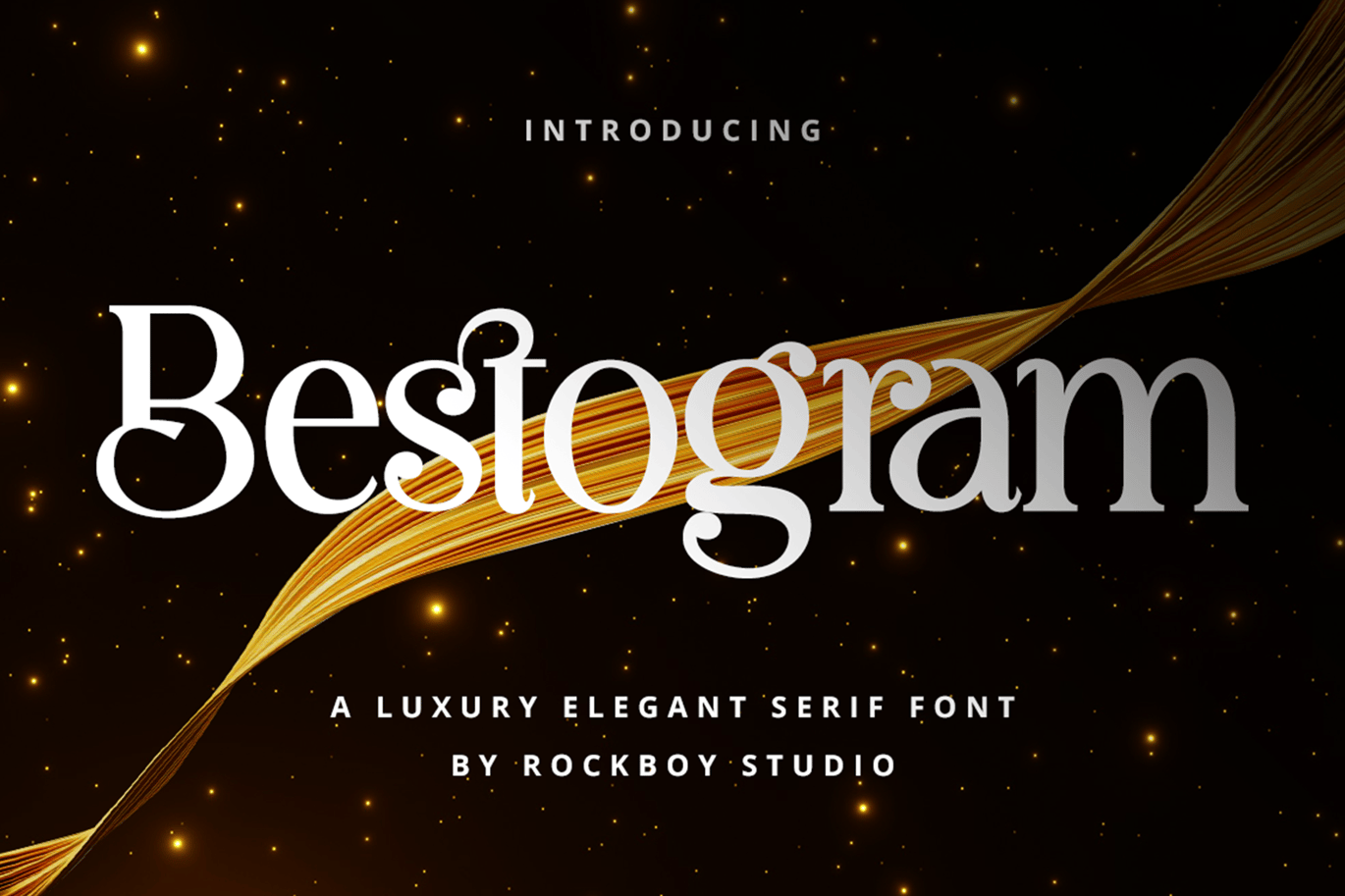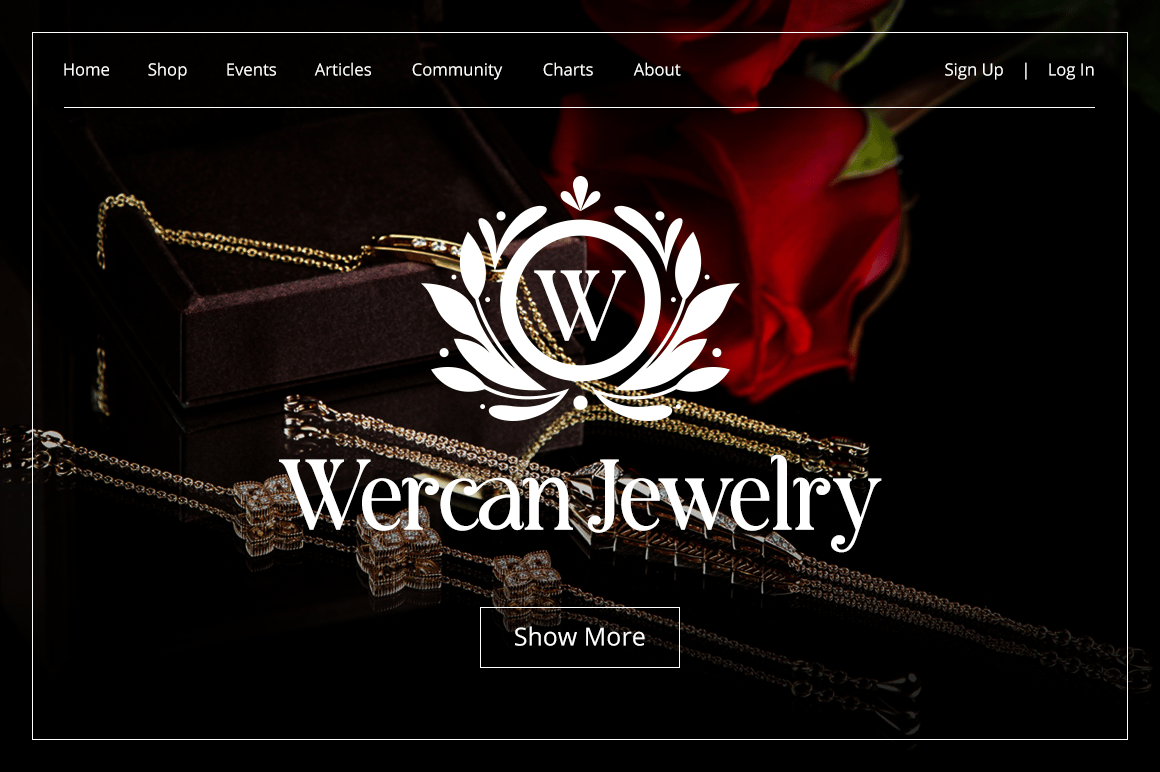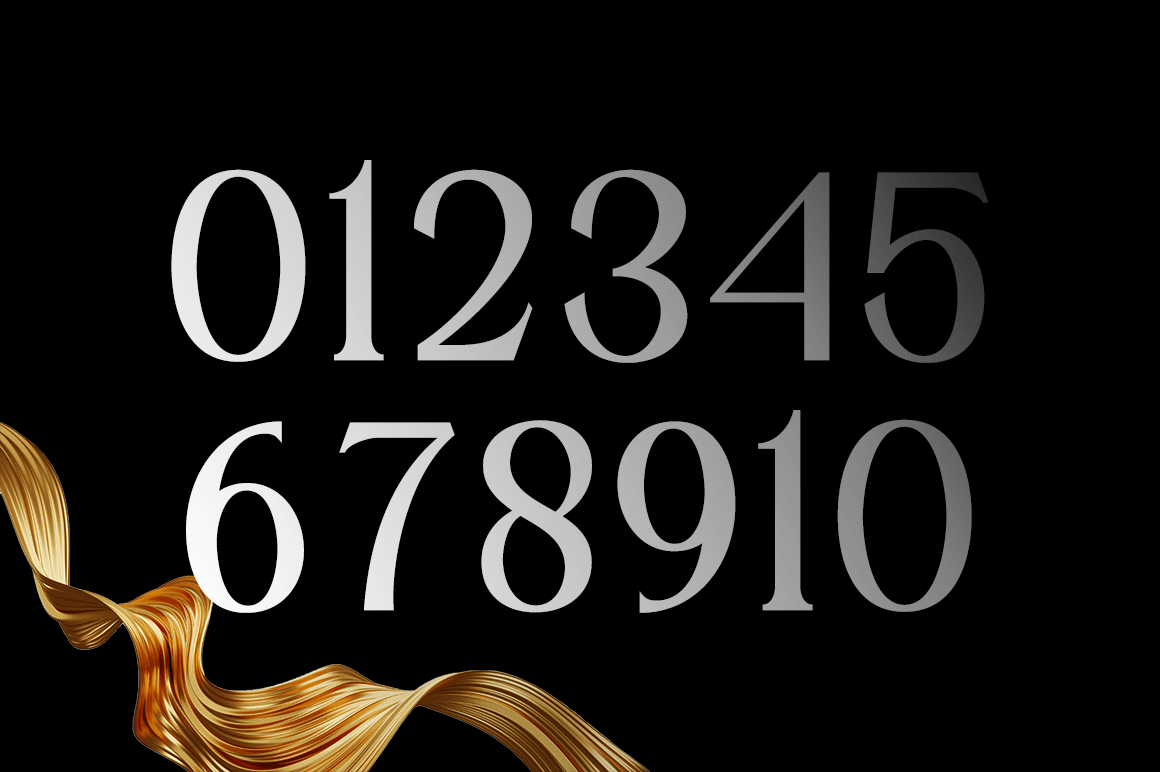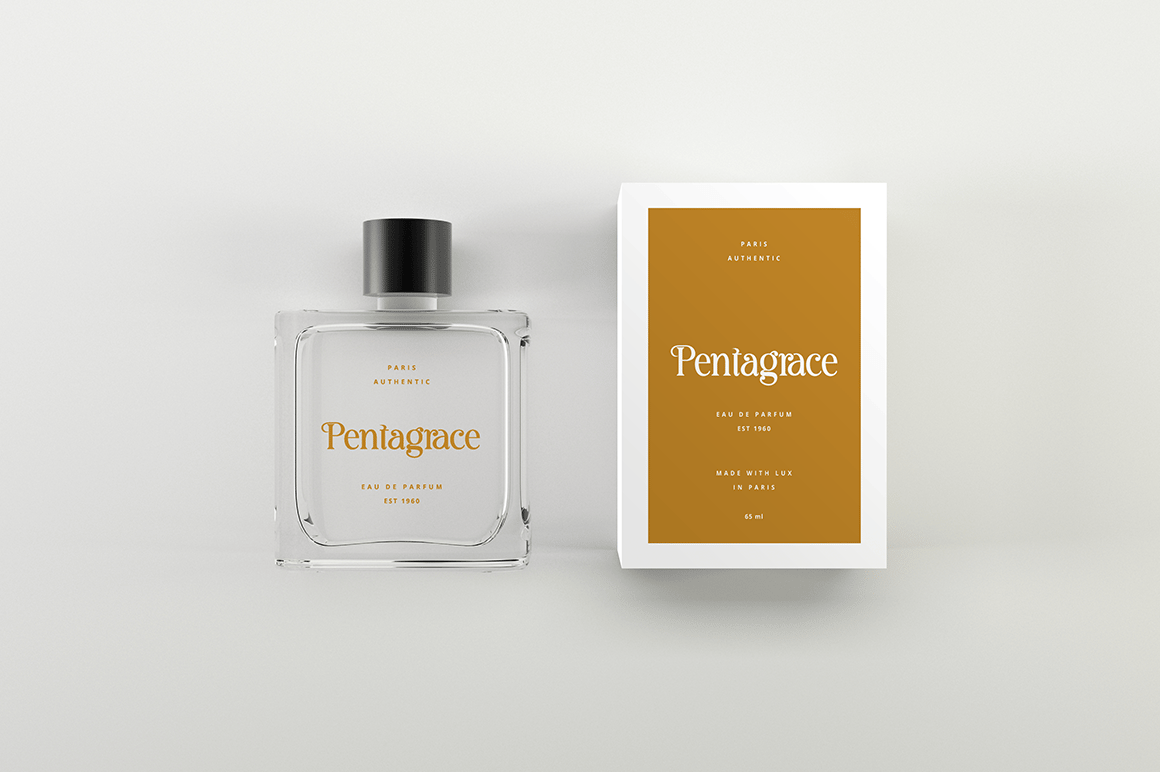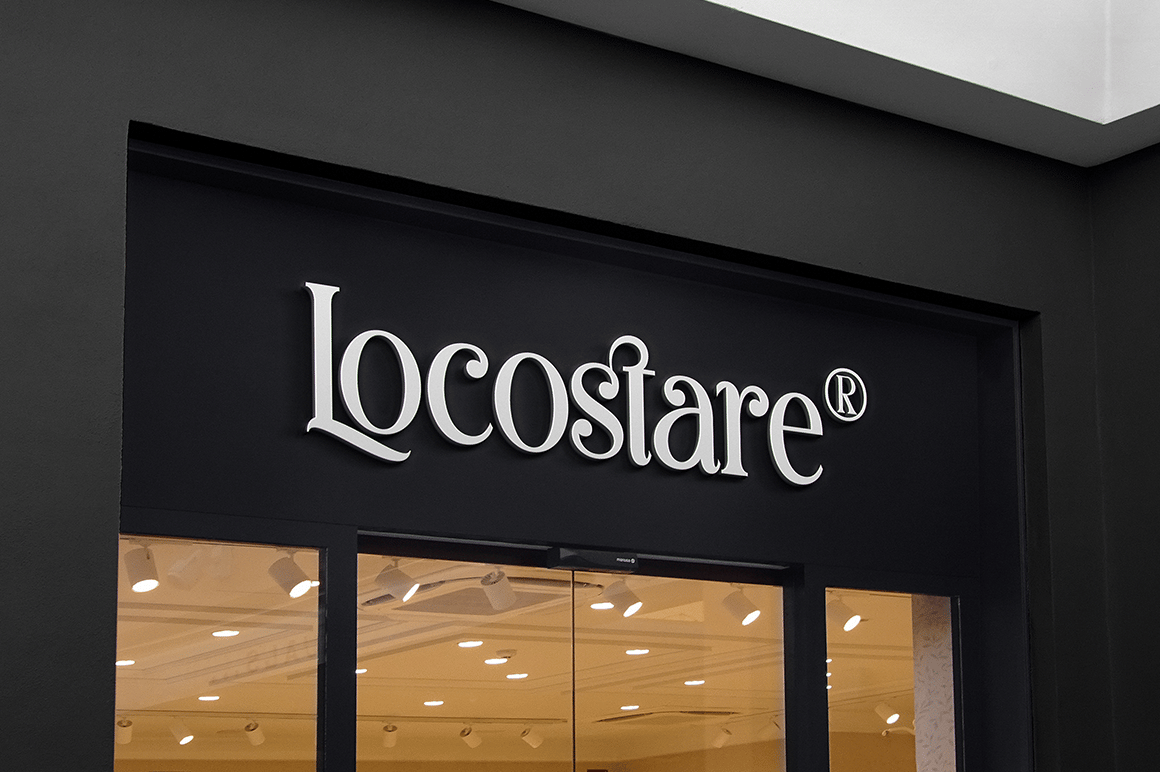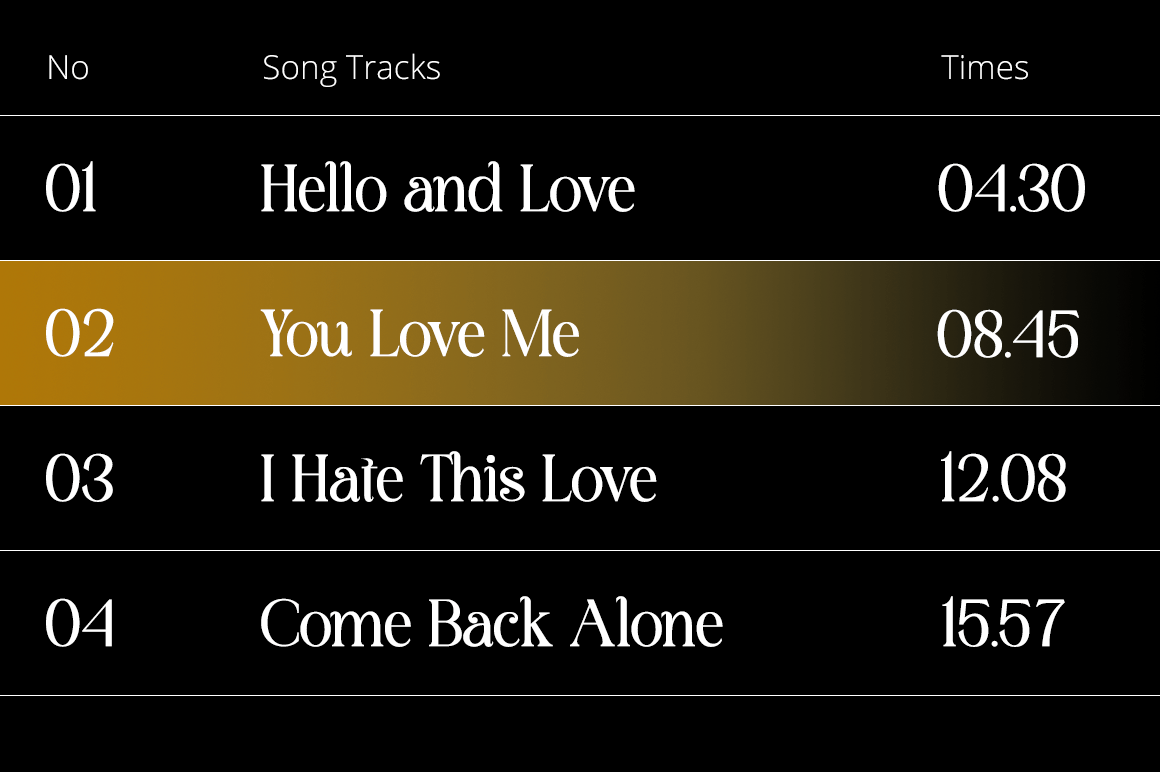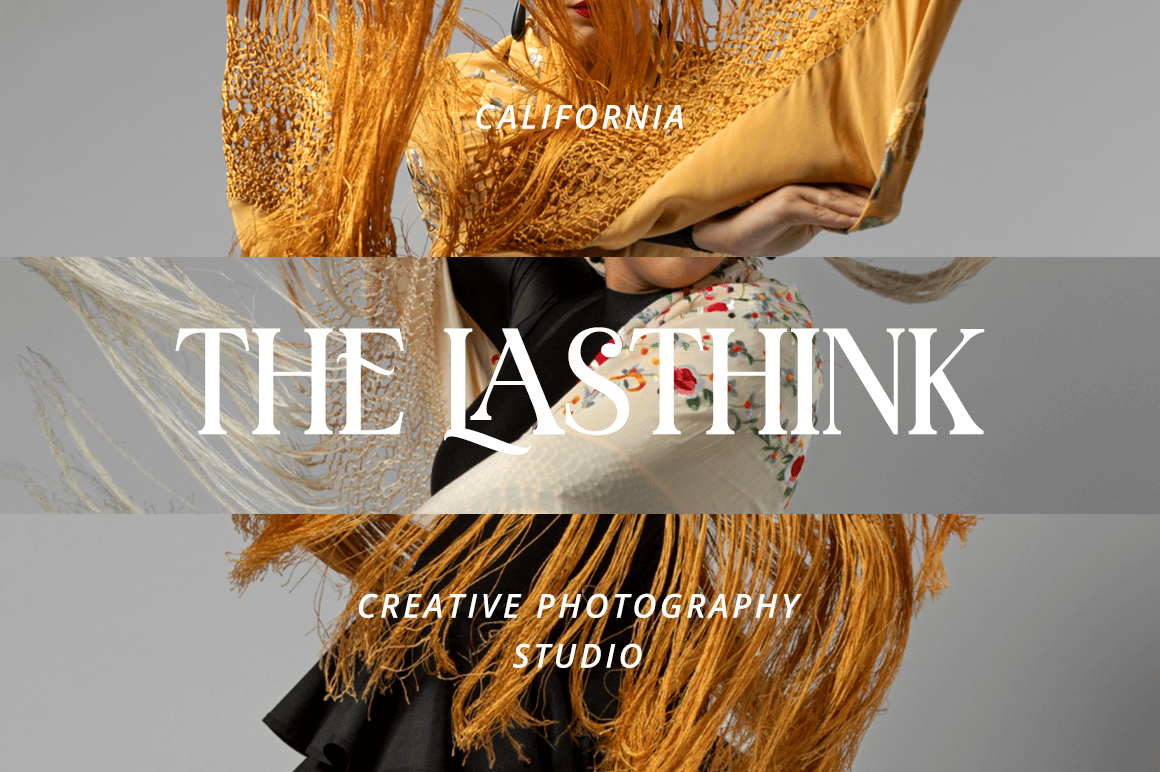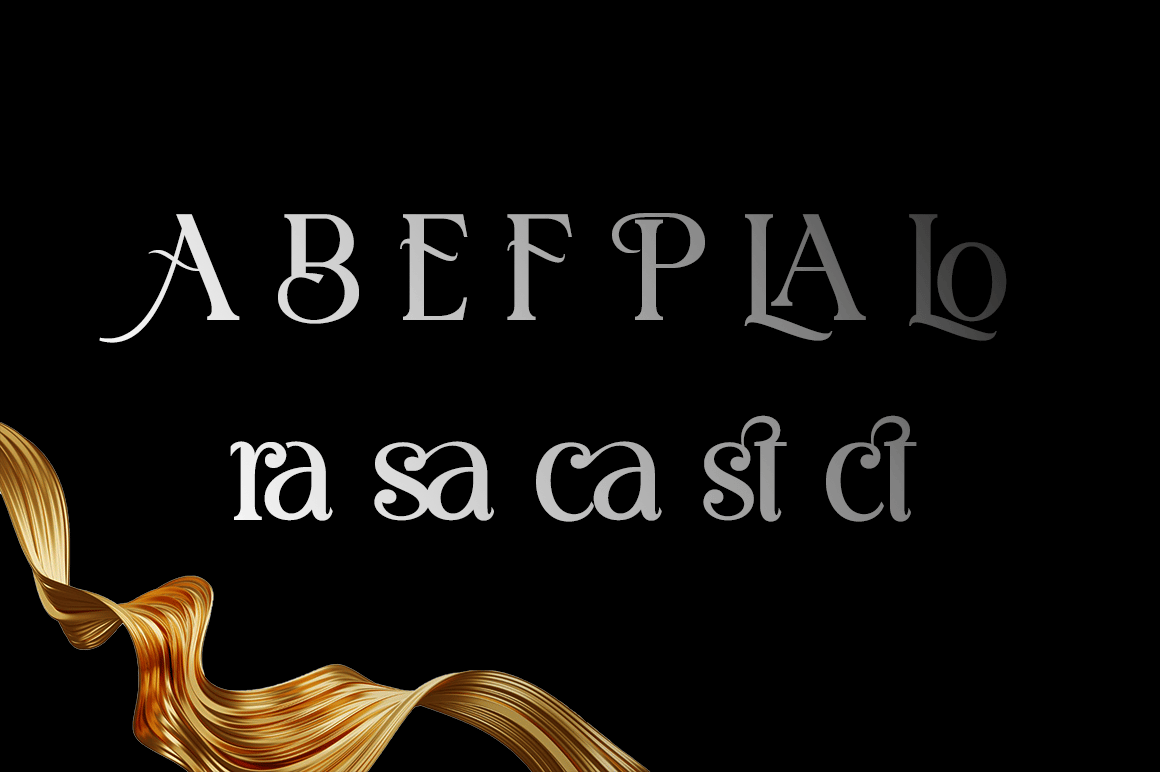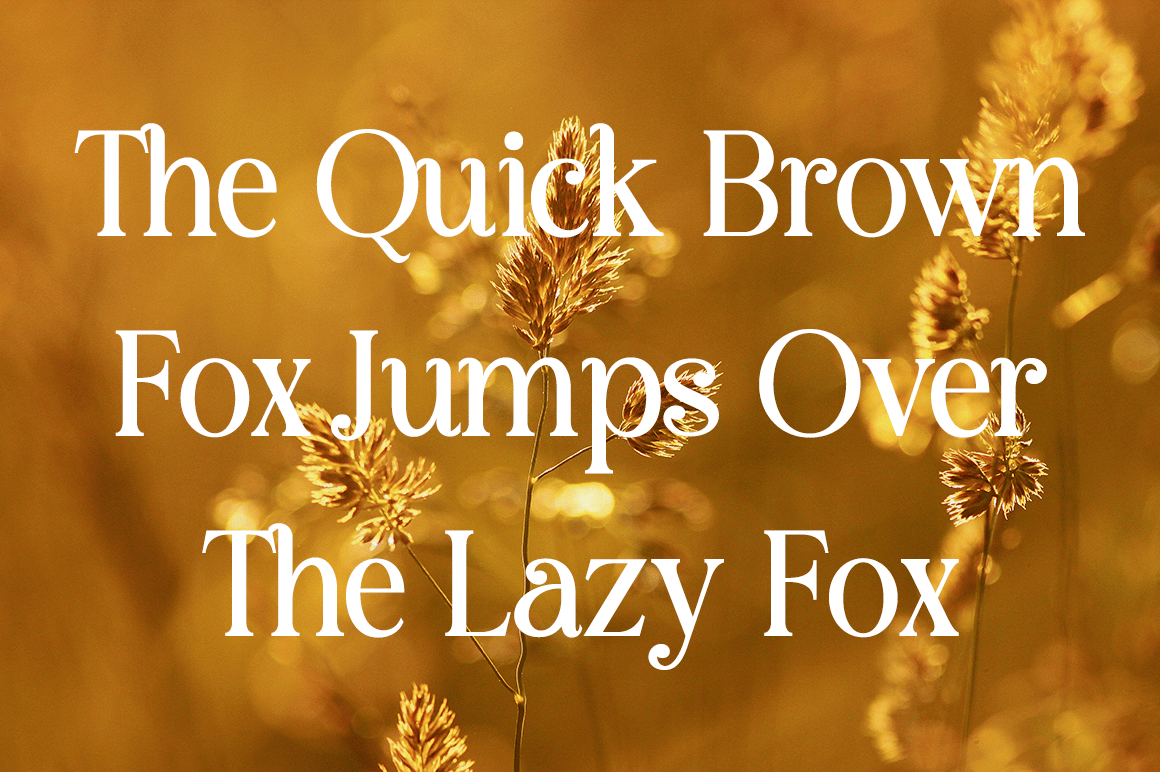
Bestogram – Logo Font
Bestogram is an elegant and distinct serif font. Suitable for a wide variety of designs due to its neat and simple style, this font has the potential to become your favorite go-to font, no matter the occasion!